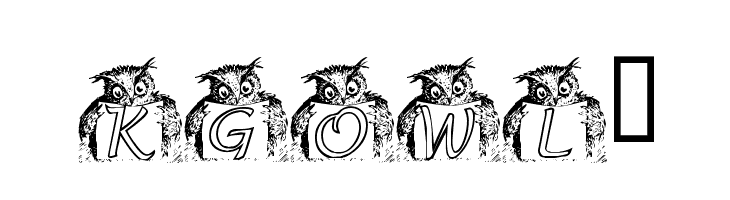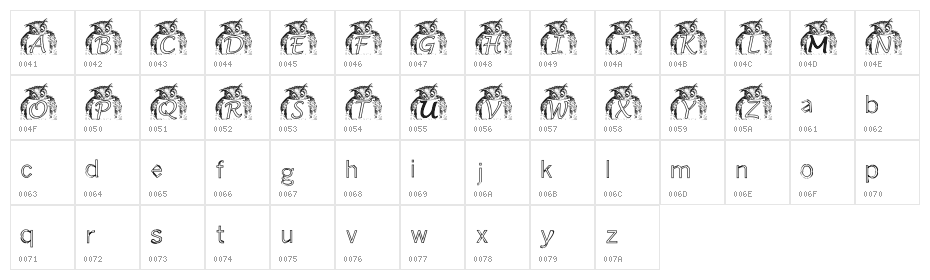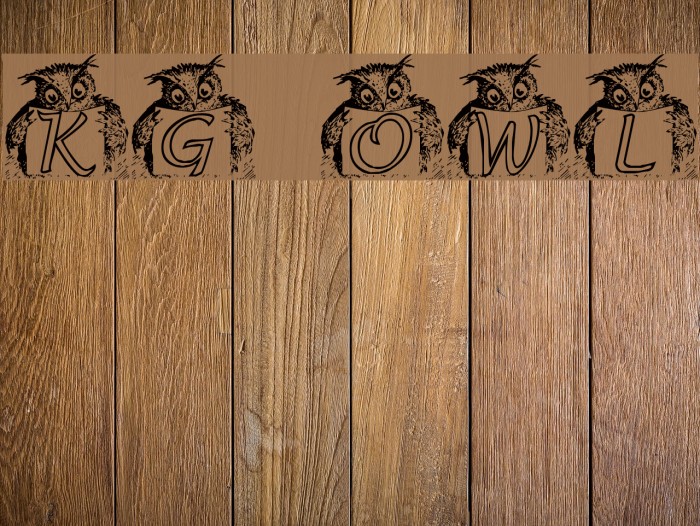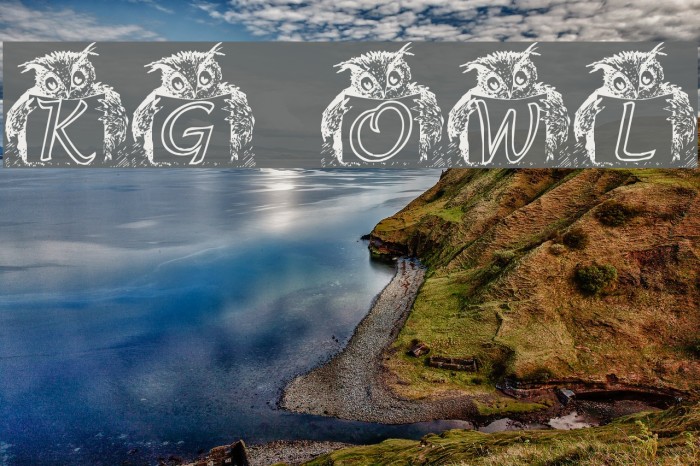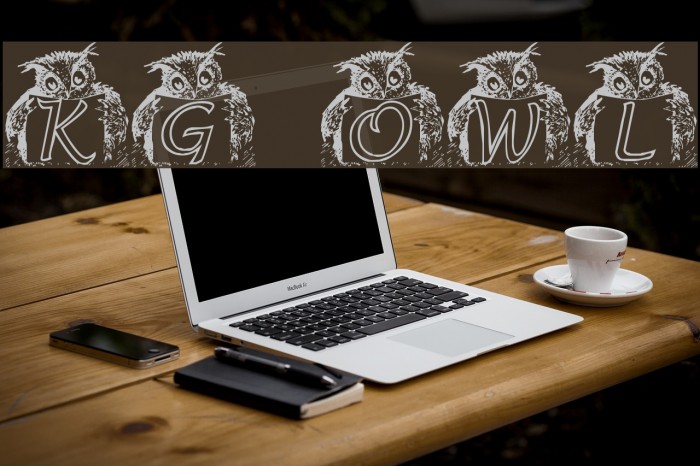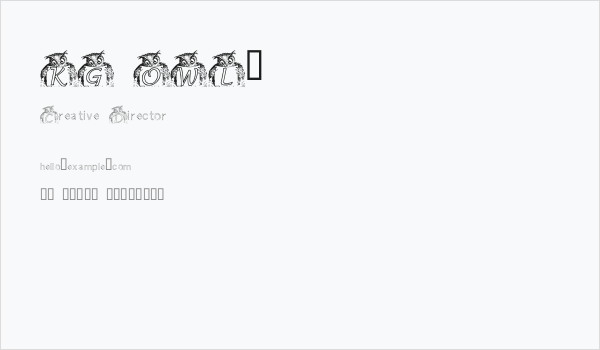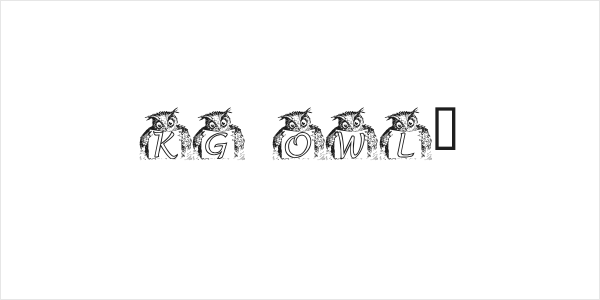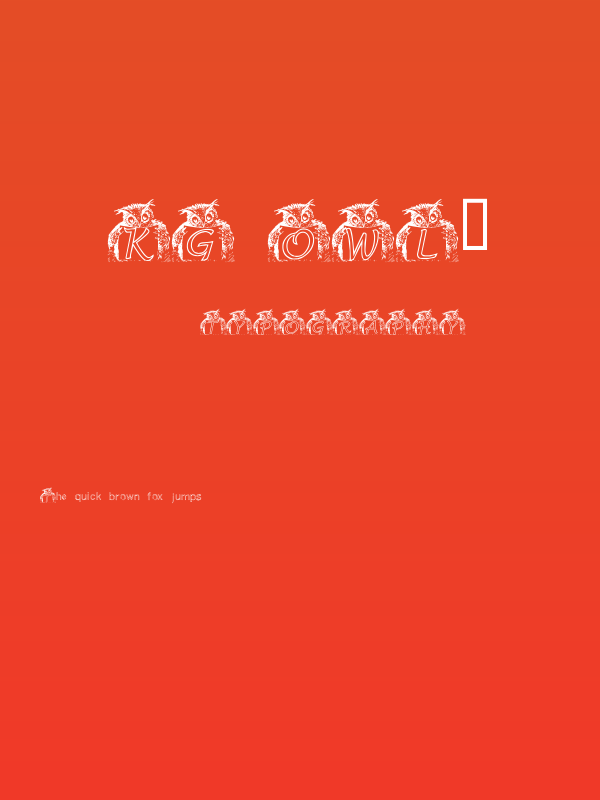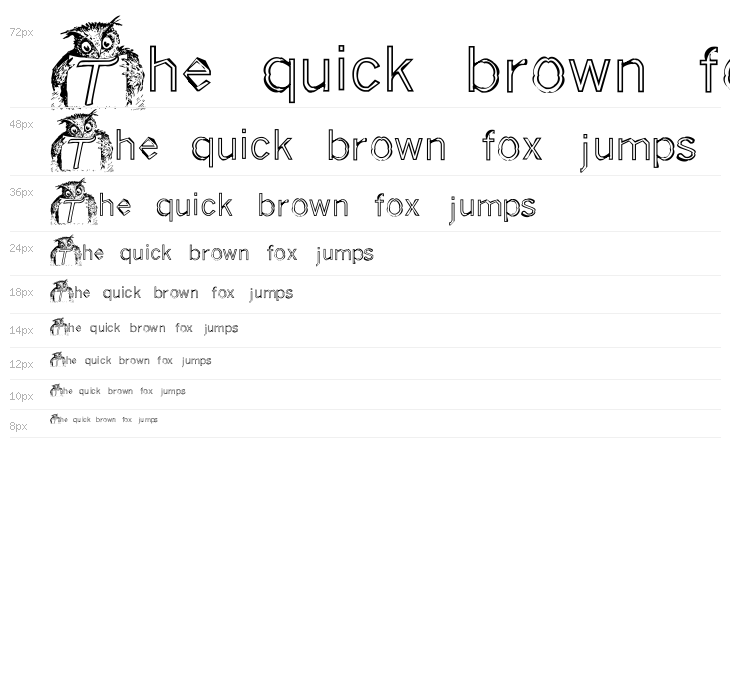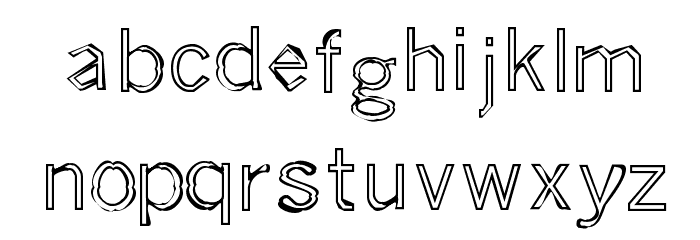
KG OWL2 Font
KG OWL2 Description
This playful and whimsical font features uppercase letters adorned with charming owl illustrations, adding a unique and decorative touch to each character. The lowercase letters maintain a clean and simple outline style, providing a nice contrast to the detailed uppercase design. The font includes a full set of uppercase and lowercase letters, along with numbers and a selection of special characters. The overall design is both fun and engaging, making it suitable for projects that aim to capture attention and convey a sense of creativity and imagination.
| Proposed Projects | Ideal for children's books, educational materials, playful branding, and creative invitations. |